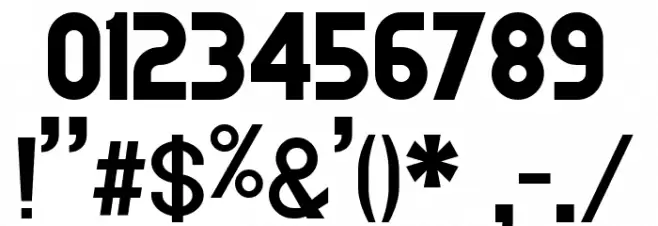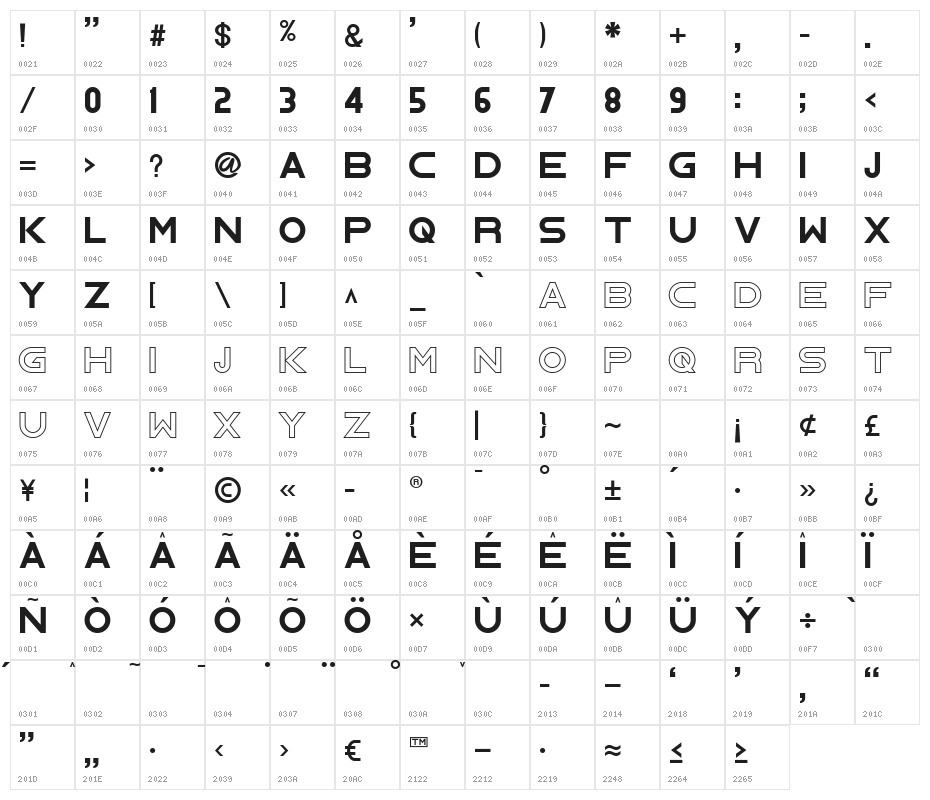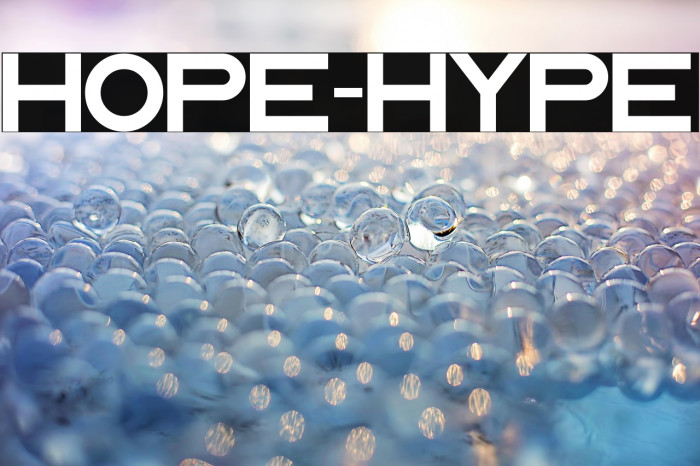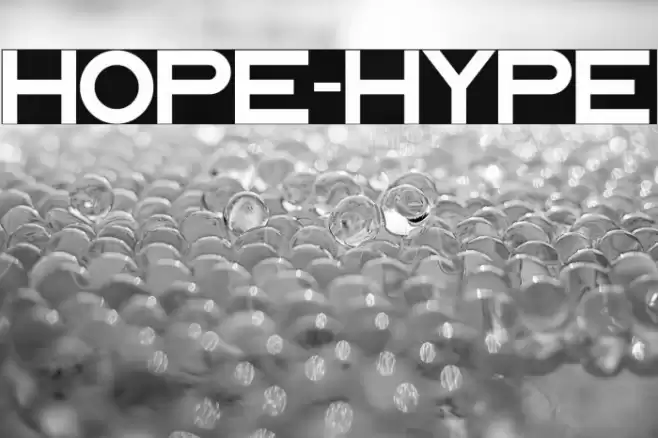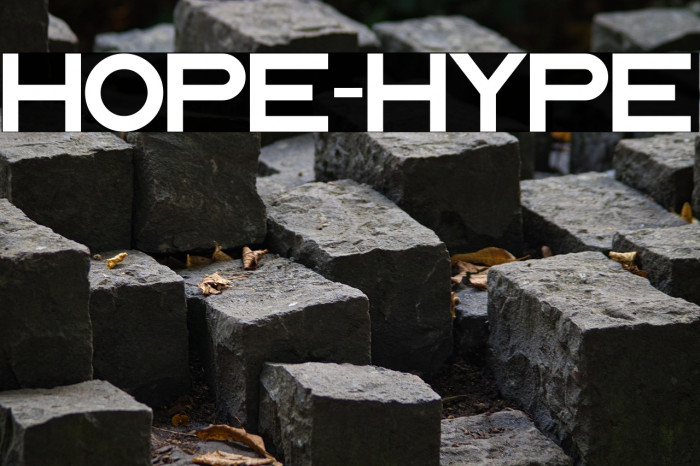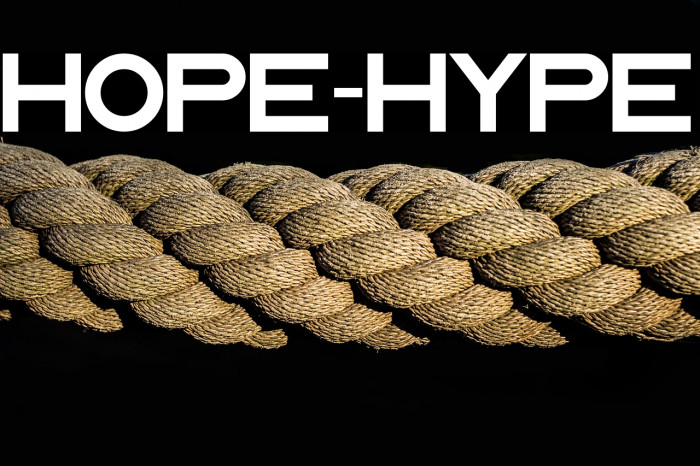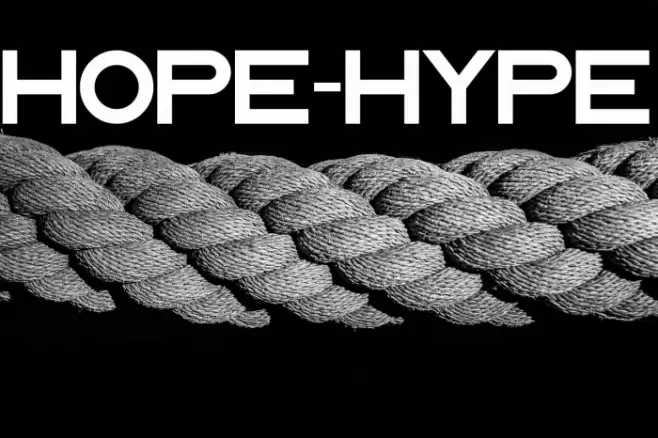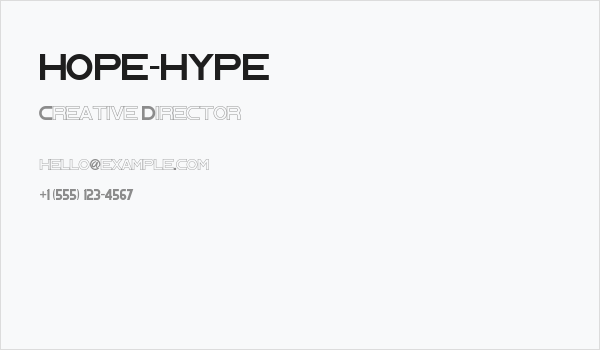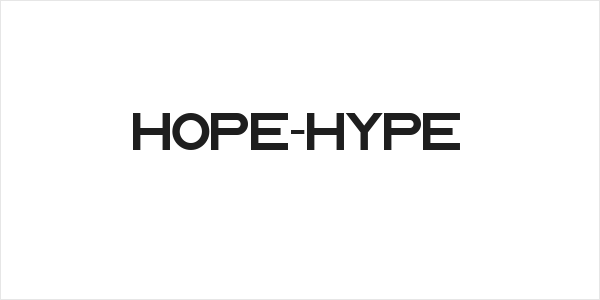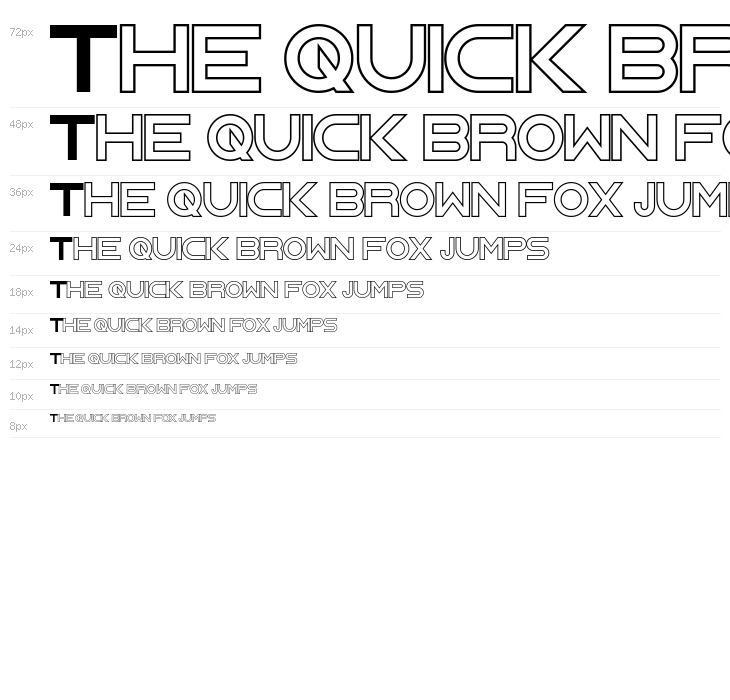
HOPE-HYPE Font
HOPE-HYPE Description
This font features a bold, geometric sans-serif style with a modern and clean appearance. The uppercase letters are characterized by their sharp angles and straight lines, giving a sense of strength and stability. The numbers are equally bold, maintaining the geometric consistency of the alphabet. The special characters are designed to complement the overall style, ensuring uniformity across all glyphs. The font's strong presence makes it suitable for impactful headlines and branding projects.
| Proposed Projects | Ideal for branding, headlines, posters, and modern design projects. |